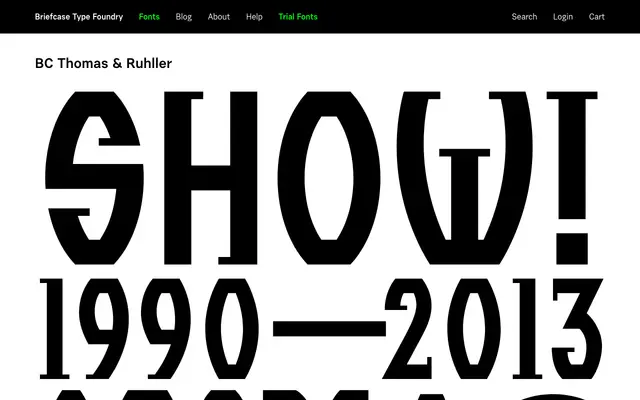
BC Thomas & Ruhller
A serif typeface from Briefcase Type Foundry with a name evoking a classical typographic tradition.
BC Thomas & Ruhller is a serif offering from Briefcase Type Foundry, whose naming convention suggests a grounding in classical or historical type design. Briefcase Type Foundry are known for producing well-crafted Central European typefaces, and this family appears to follow that heritage. Limited public information makes a fuller assessment difficult.
The name and foundry context suggest a classical serif in the transitional or old-style tradition, though limited page content prevents a more precise classification.